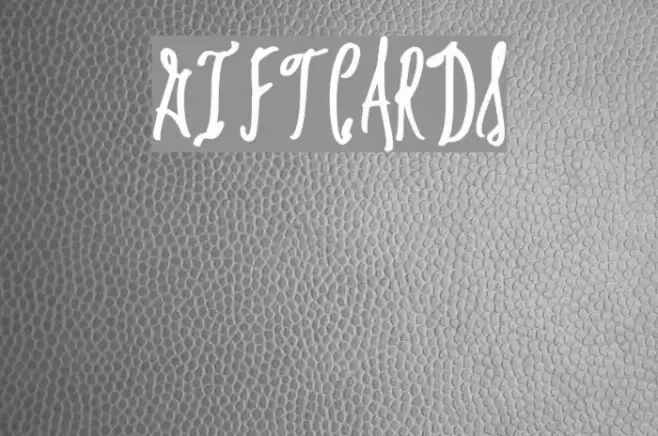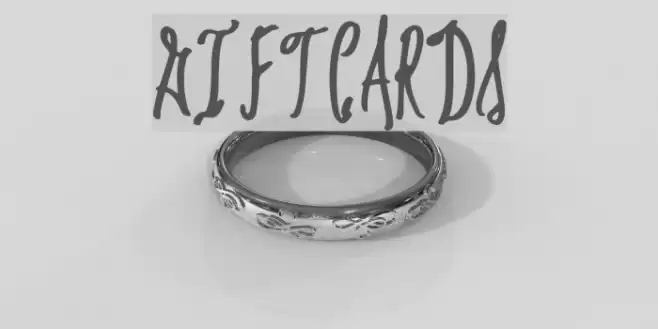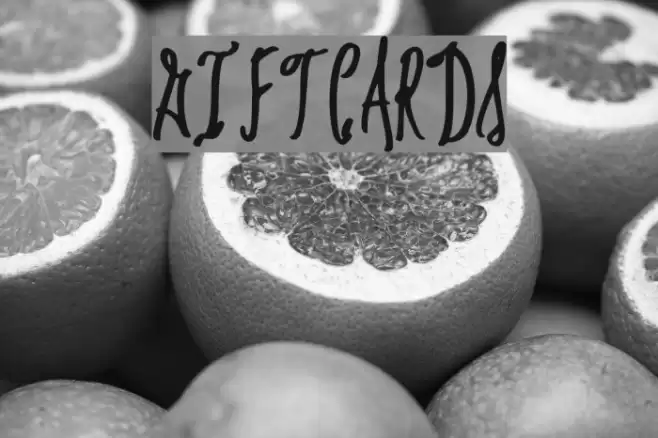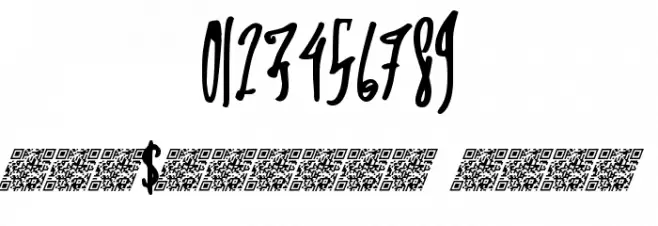
GiftCards Font
GiftCards Description
This font features a unique, artistic style with a handwritten appearance. The characters are bold and slightly slanted, giving a dynamic and energetic feel. The uppercase letters have an exaggerated height, while the lowercase letters maintain a consistent flow. The numbers are distinct and maintain the same stylistic flair as the letters. Special characters are creatively integrated, adding to the font's overall playful and decorative nature. The strokes are thick, with varying widths that add a sense of movement and rhythm.
A bold, artistic handwritten font with dynamic, slanted characters from Handwritten fonts.
- Proposed Projects: Ideal for creative projects such as greeting cards, posters, and branding materials that require a personal and artistic touch.